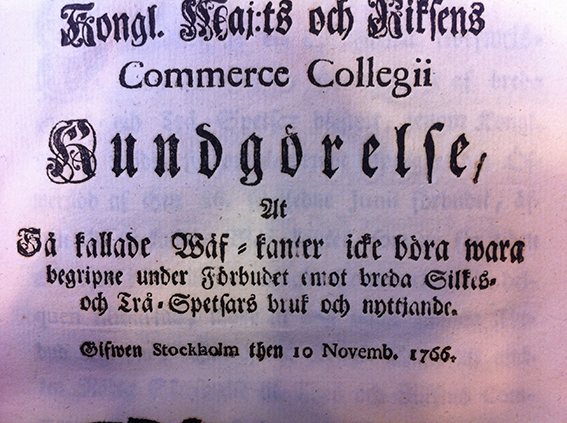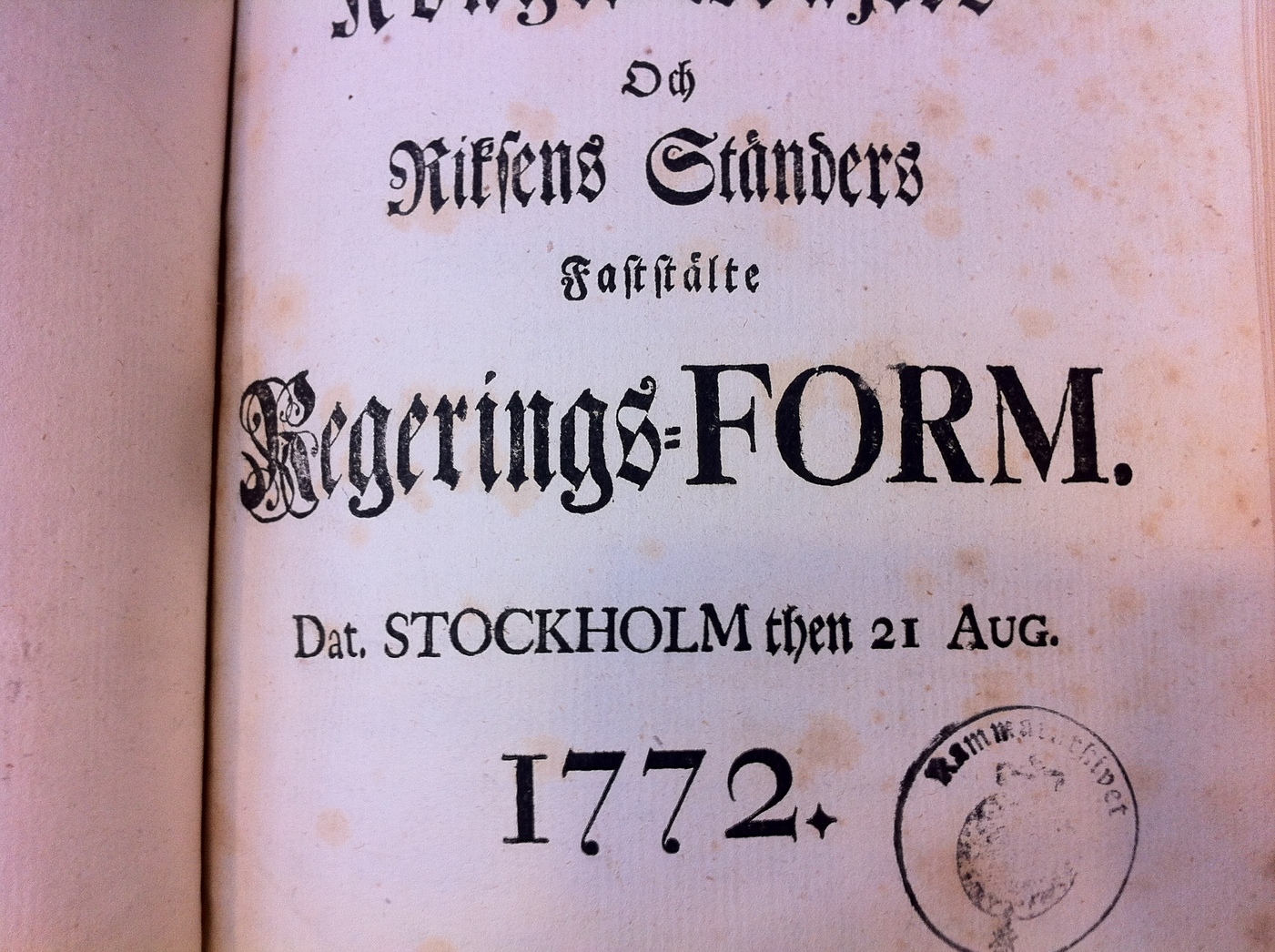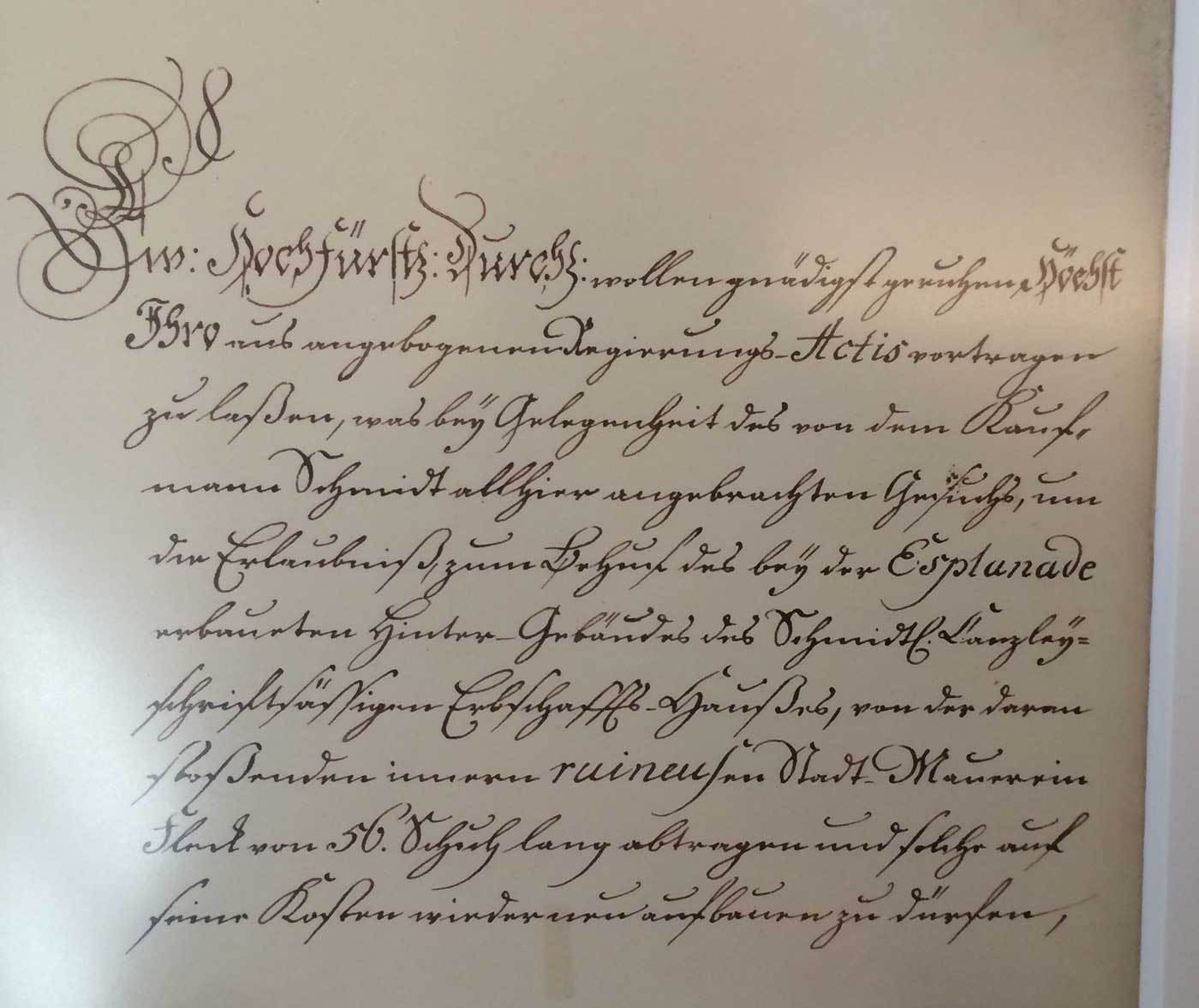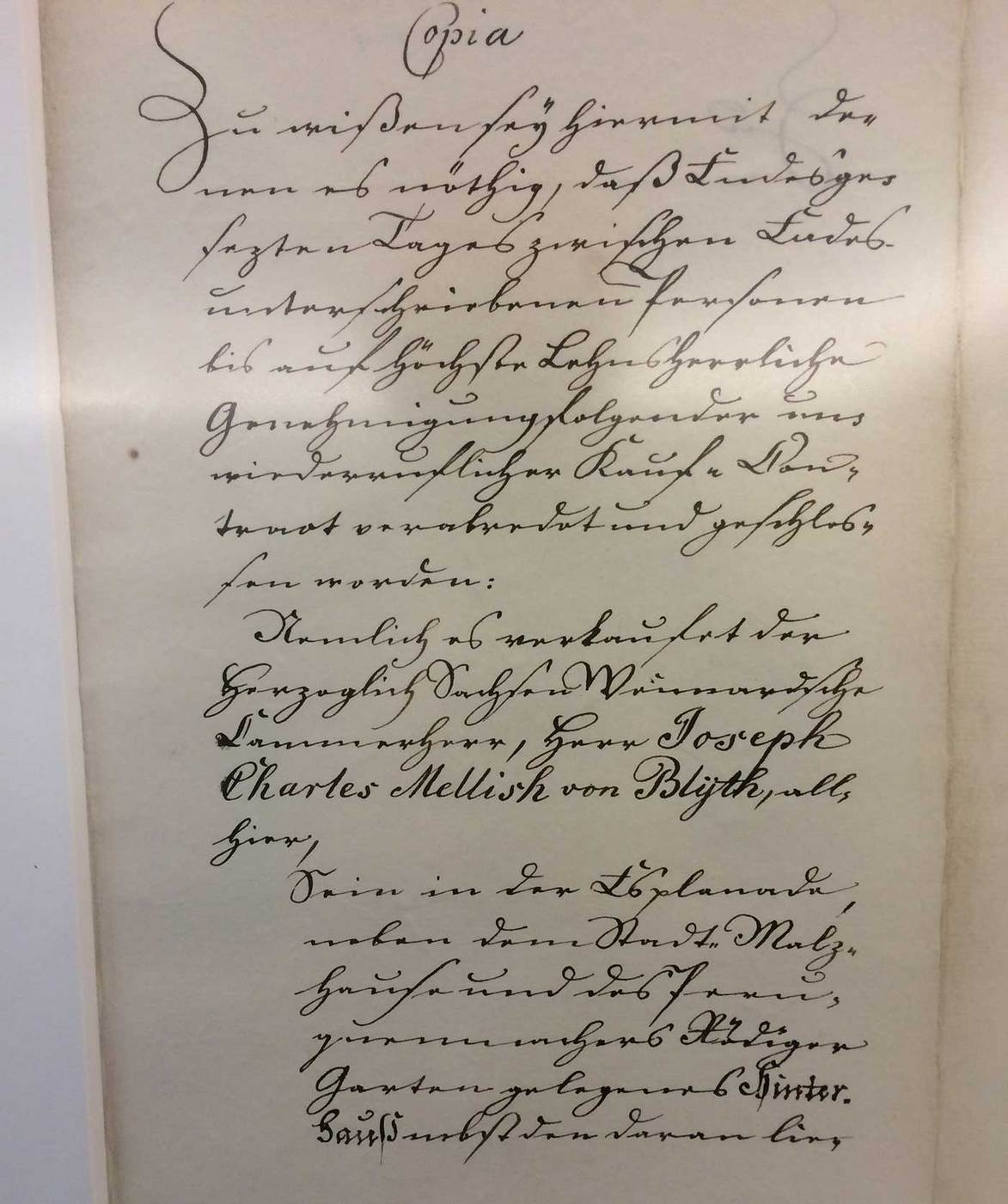
Mixing blackletter and Roman type
In older swedish official print Blackletter Fraktur and Roman are combined i peculiar ways. Here are samples from The Instrument of Government from 1634 by Meurer and 1772 by Salvius. Fraktur was body text and Roman accent.
In older swedish official print Blackletter Fraktur and Roman are combined i(n) peculiar ways.
​In Germany this was continued until the 20th century. If word or name was considered “foreign”, it was typeset in a “foreign” font style, i.e. Roman letters.
​It was not that simple by the way: According to the latest custom I am aware of (according to the Duden dictionary), only words from Romance languages whose inflection or pronunciation wasn’t German and that weren’t proper names were written in roman type. Thus, for each of the words set in roman type in the examples there was at least one reason not to set it in roman type according to these rules.
Interesting, and apparently this printer had many sheeps [ref to Goudy].
… and that weren’t proper names were written in roman type. ​
But wasn’t it also based on the practical reason, that earlier blackletter fonts usually didn’t have foreign diacritical characters and so using a “French” typeface for setting “René” was the best way to go?
For special characters, I have seen the following three solutions:
• Setting the whole word in roman type.
• Setting only the special character in roman type.
• Creating blackletter variants of the special character – my blackletter Duden features amongst others a blackletter Œ (for Œuvre).
However, all works I know of only applied this to words with special characters and not to all words from languages with special characters (i.e., without the restrictions of the rules I mentioned), but I wouldn’t be surprised if somebody did it somewhen. Therefore I doubt that this was the origin of these rules, but it’s difficult to make any more substantiated statement about this.
And because it wasn’t mentioned yet: the same thing was also common in handwriting. Here are two pictures I took today at the house of German poet Friedrich Schiller showing two letters from around 1800. Note how the Roman writing is used instead of Kurrent for foreign words as “Esplanade” and the proper name “Joseph Charles Mellish von Blÿth”.
... however, the second page also shows that Roman writing wasn't used consistently in these cases. Last paragraph, first line, last word: "Esplanade" appears in Kurrent again. I guess the reason for using Roman writing for "Esplanade" on page one is not because it's a foreign word, but because it's a proper name (and people wanted to make sure that it is deciphered correctly).